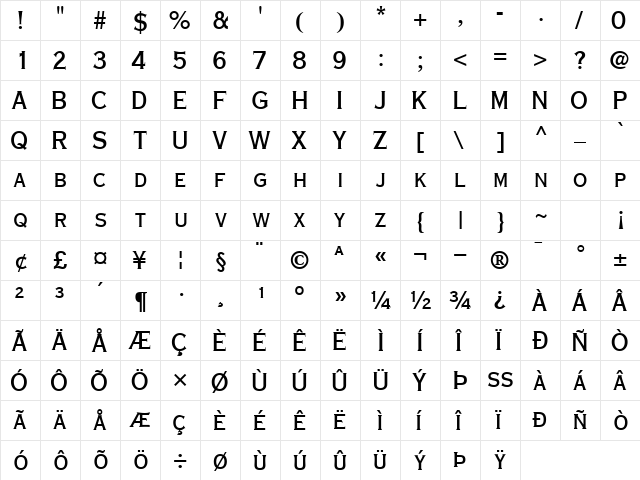
CopperplateCondSCapsSSK Bold
Design Context for CopperplateCondSCapsSSK Typeface
CopperplateCondSCapsSSK offers clean, dependable letterforms without strong stylistic allegiance, making it a practical choice for designers who need flexibility. Its bold stroke weight gives it real presence on the page. Its narrow stance lets it pack a punch even in space-constrained designs.